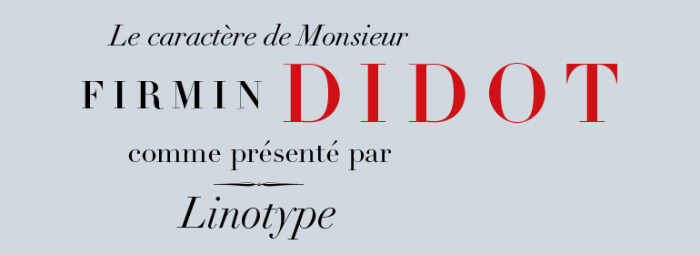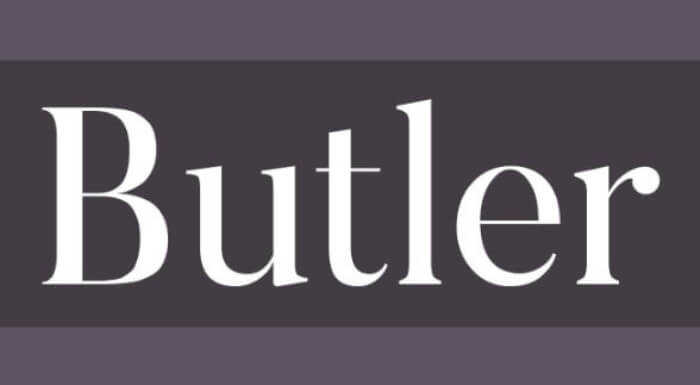
Best Logo Fonts to Use in Your Designs
The font you use can be the decisive factor that will define the success of your logo. Finding the perfect logo for your logo design is an important task and we’re here to help you find it, and offer some backstory about the best fonts for logo design.
Typography is of major importance in graphic design; every typeface and font has its own character and spirit it brings to the overall creation. Depending on the type of business and brand image you want to build, you need fitting typography. Here are a few categories of fonts you might want to look into.
Essentially, fonts can be serif, sans serif, slab serif, script, geometric, etc., but instead on the technical side, we sorted them by aesthetic characteristics and style.
Vintage and retro
Vintage fonts are suitable if you want a classy design inspired by a certain era, or the theme of your business requires it. Still, retro doesn’t have to mean it won’t look contemporary, cause many fonts can combine the best of both worlds.
1.Mullingar (purchase only)
Mullingar is a display typeface inspired by letters used in old advertisements and sign-painting culture. The creators added a modern touch to keep it relevant. It is built from a bold and blocky base, unique serif combinations, clean and smooth curves, and sharp edges.
It heavily reminds of retro sign painting and rustic architecture, making it perfect for bold signage and logo designs, as well as other uses.
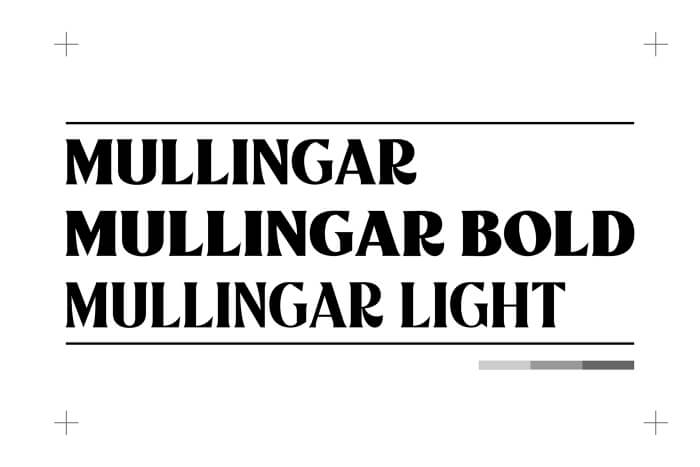
2.Frontage Condensed Typeface (purchase only)
Frontage Condensed is extremely noticeable due to its colorful facade signage. It is a three-dimensional font with narrowly spaced letterforms. It’s got a retro vibe, something reminiscent of the Golden Age of Hollywood. It’s very easy to remember the old cinema signs on Sunset Boulevard when you see this font.
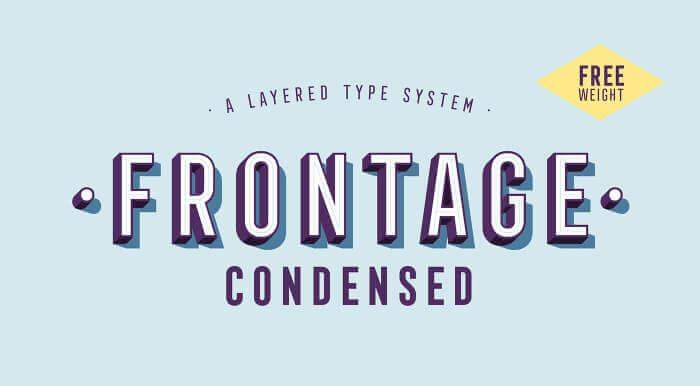
3.Ephemera Kingsford (free for personal use)
This new vintage typeface is adapted from real collectible tins and cans. The designer had a passion for collecting old tin packaging and adapted this digital typeface from those references. It has a very strong Wild West characteristic and retro quality, and it is a fitting font for your logo if you’re an alcohol beverage manufacturer or a craft beer bar.
4.Rekina (purchase only)
Rekina Vintage Bold Script is a serif font inspired by vintage vehicle ads. It has very wide and bold lettering with discretionary ligatures. The creators made it with a few uses in mind: it’s a great choice for logo design and branding purposes.
5.Modesto (free)
This font family by Jim Parkinson is directly inspired by hand-painted typography and the logos of Ringling Bros. and Barnum & Bailey Circus. The designer didn’t plan to create the Modesto Family, but he kept releasing 23 fonts in a time period of twelve years: from 2000 to 2012.
6.Alfa Slab One (free)
This font created by designer JM Solé is a slab serif font inspired by the Six-lines Pica Egyptian. It possesses extreme stem weight, big serifs, more stem contrast, and gradual terminals with a single serif.
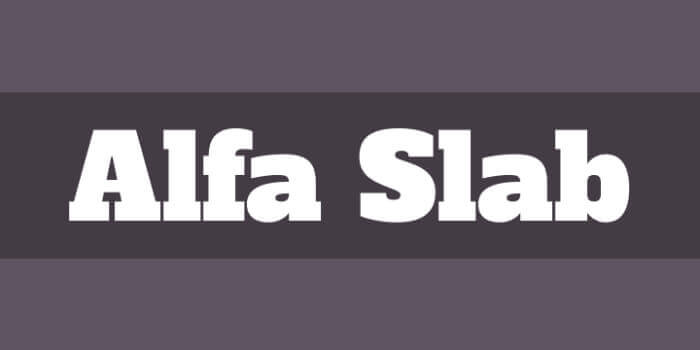
7.Zorus Serif (free)
This old-timey serif typeface has a vintage elegance to it. It is perfect for use for a vintage-style cafe, magazine, or skincare products.
8.Sackers Gothic (purchase only)
Sackers Gothic is part of a larger Sackers collection of fonts. It is inspired by engraved stationery and social cards by Gary Sackers, a Charlotte, North Carolina intaglio printer. Sackers’ typefaces are initially made into photo-set type, and digitized and released in the late 1980s by Compugraphic.
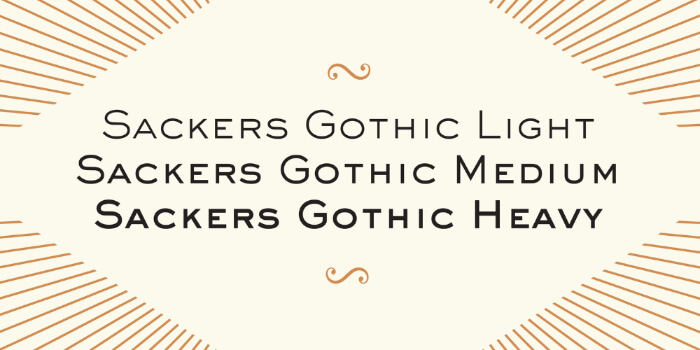
9.Baisteach (free for personal use)
Baisteach is an all-caps vintage serif inspired from the early 1900’s typography often used in sign paintings, packaging labels, and advertisements. It is an elegant retro typeface consisting of sharp serifs and clean edges, as well as an extensive list of glyphs whose intricate form makes it suitable for logos and logotypes.
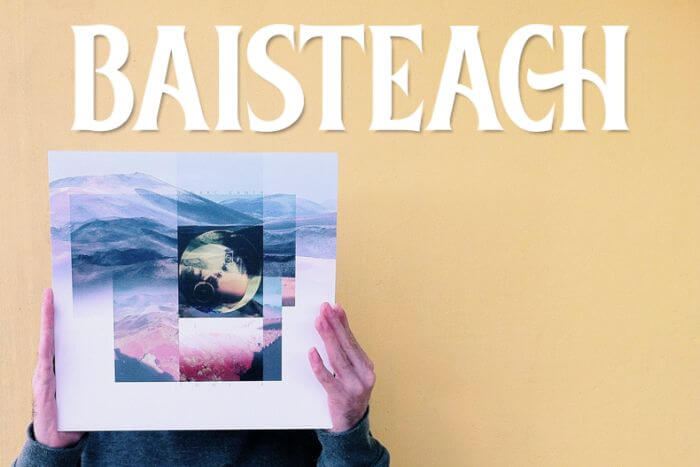
10.Architectural (free)
This typeface is clean and retro, reminiscent of the Art Deco movement. It has a strict construct and each letter has a unique building, which is exactly why it carries that name.
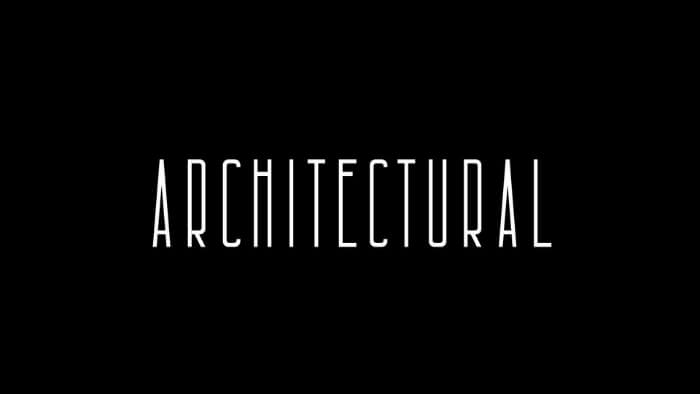
11.Akura Popo (free)
Another vintage and condensed serif font you can easily imagine on a theme restaurant logo or on a beverage label. It’s great for logotypes, as well as a display font. Or any use you might have for a font that brings a tough and authentic spirit, really.
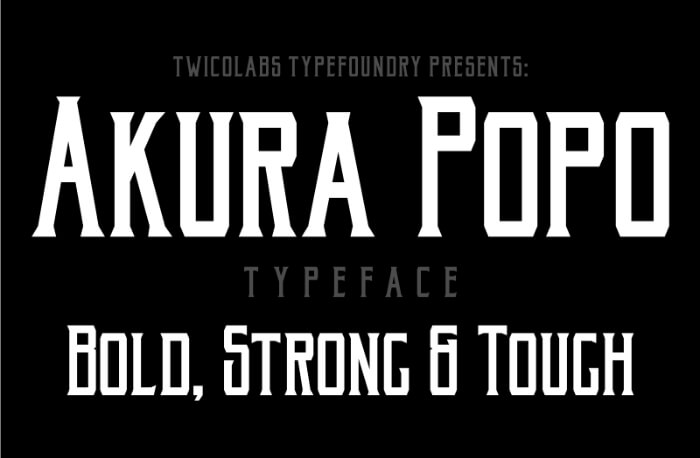
Classic
In this sublist, you’ll find fonts that have been prominently featured in many famous and timeless logos and graphic design examples throughout the years. From free fonts to some of the most intricately designed typefaces, these fonts are the royalty of typography.
12.Bodoni (free)
Bodoni makes a perfect logo font, and the creators of the Vogue and Clavin Klein logos, among others, were well aware of that. Bodoni typeface has five noticeable characteristics: a dramatic difference between the thick and thin design elements, thin serifs, a vertical axis, horizontal stress, and small aperture. It is commonly used in fashion logos.